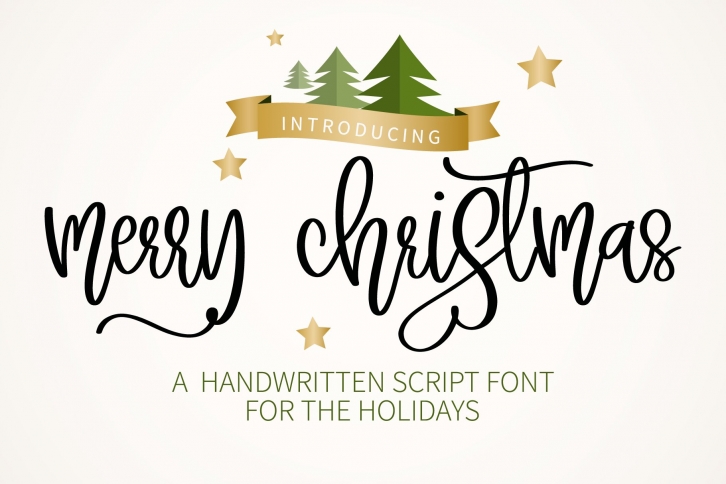
Merry Christmas is a beautiful font that was designed by RungNoiStudio. It's a great choice for designers and creatives who need such a font. It was released on September 29, 2020 and the file size is 19.77 MB. Merry Christmas may give a more youthful, expressive and casual look to your project. It is a very beautiful, refined, elegant, and high-quality font.